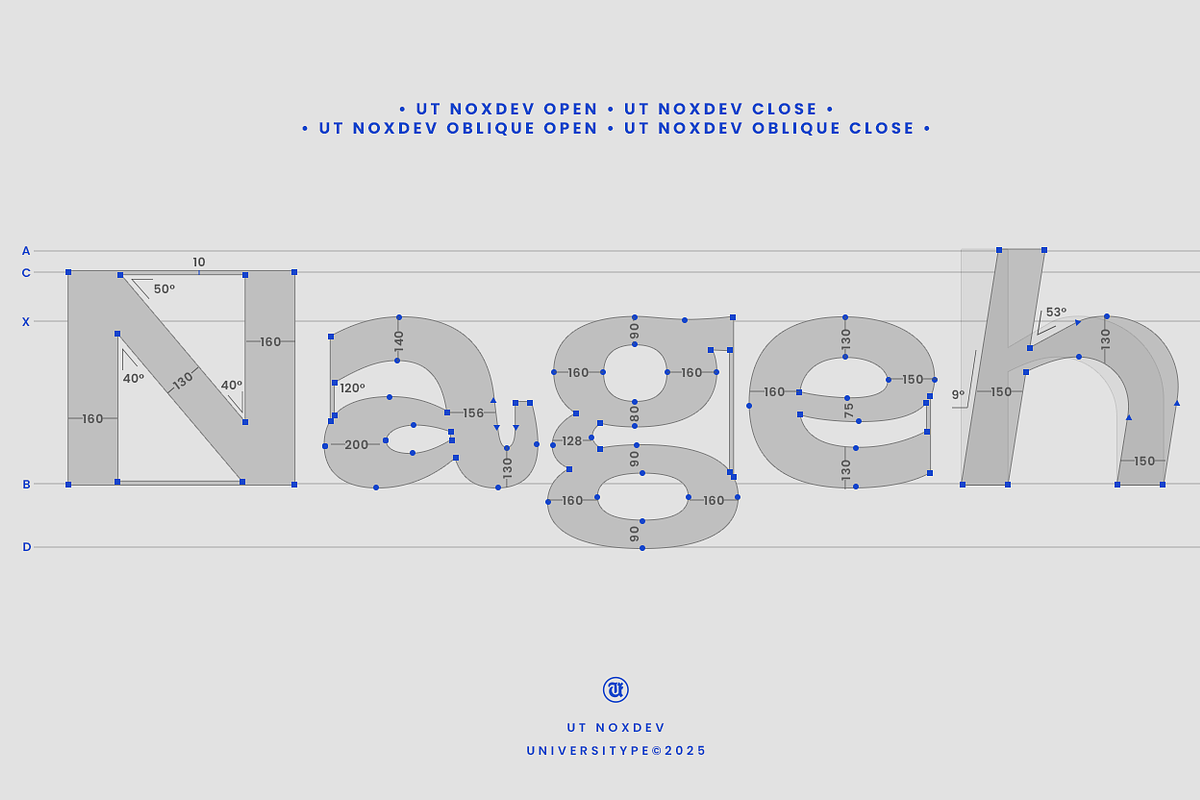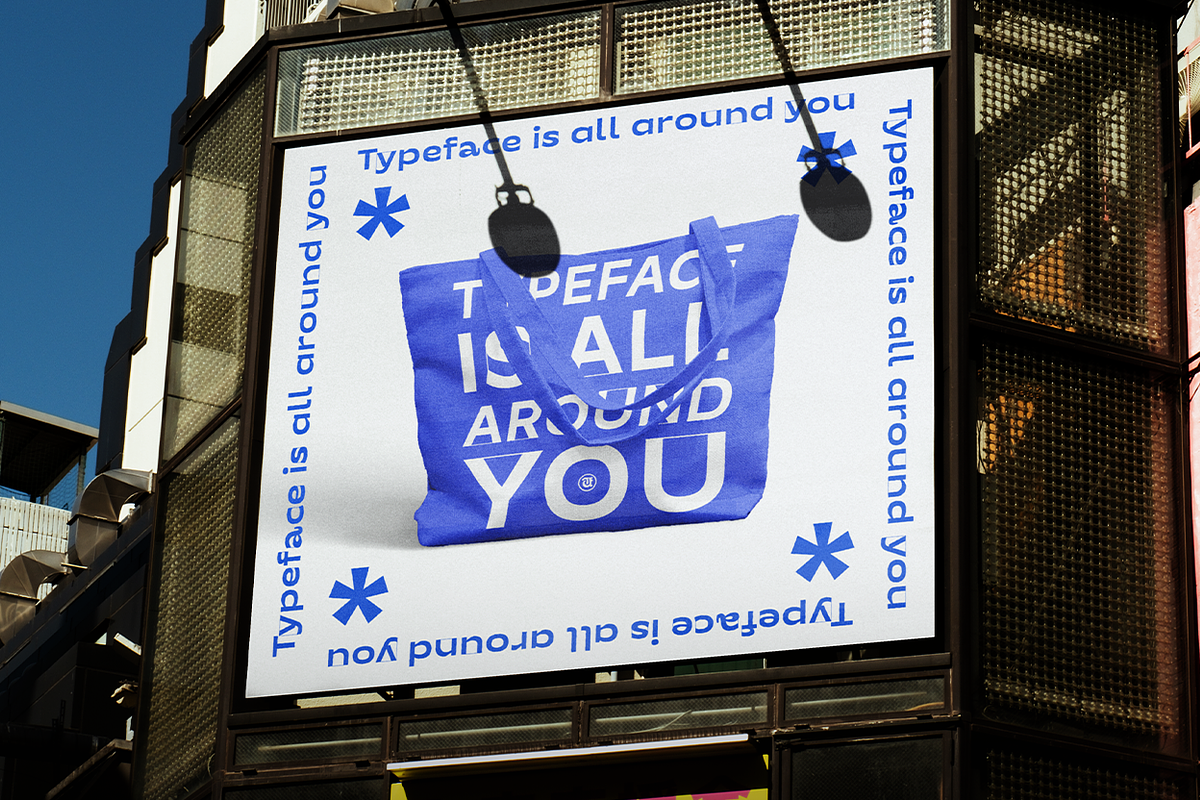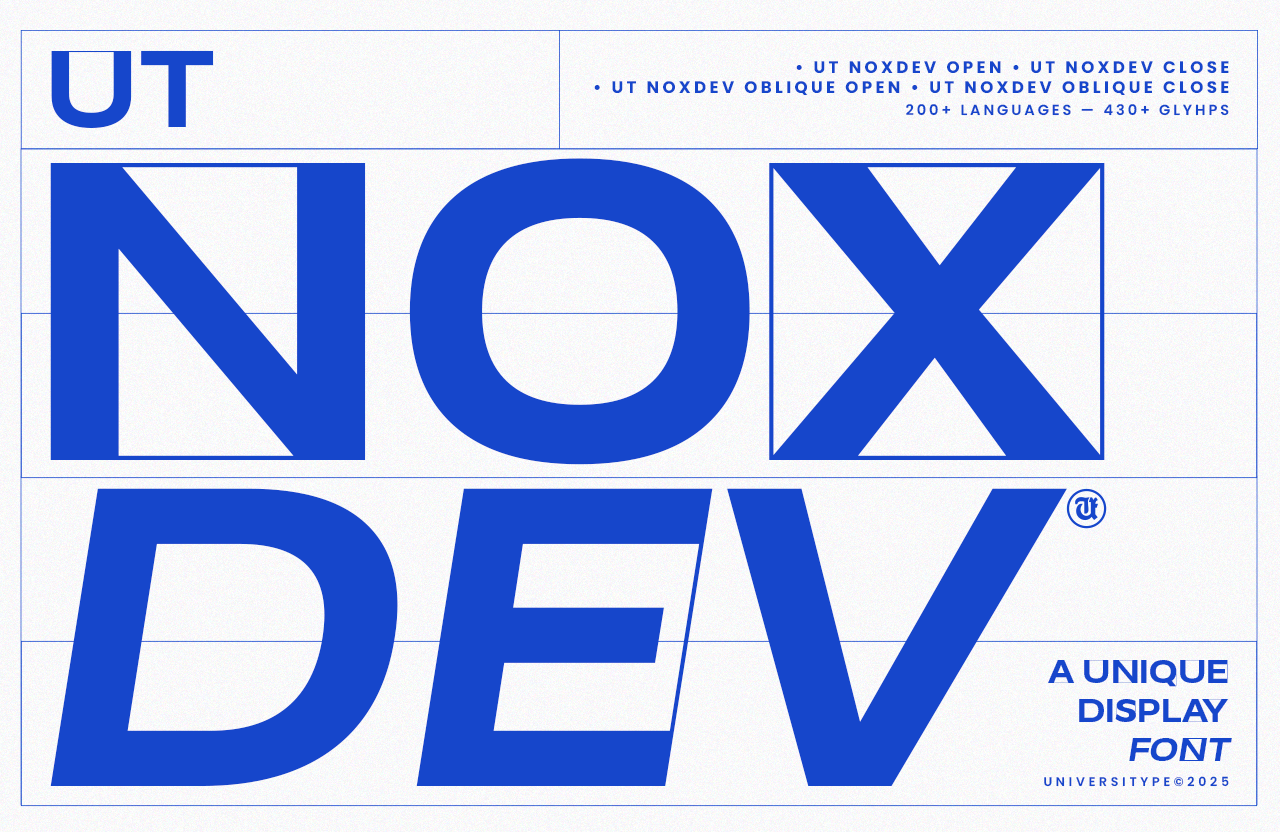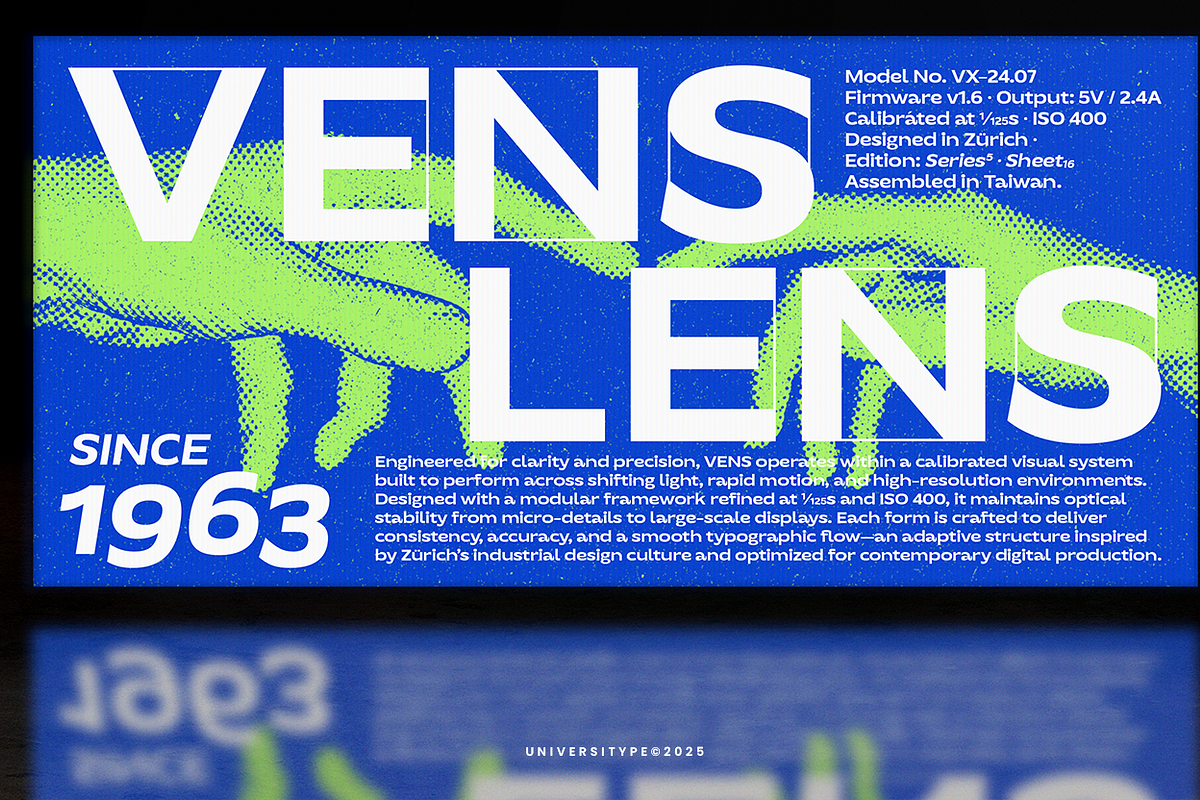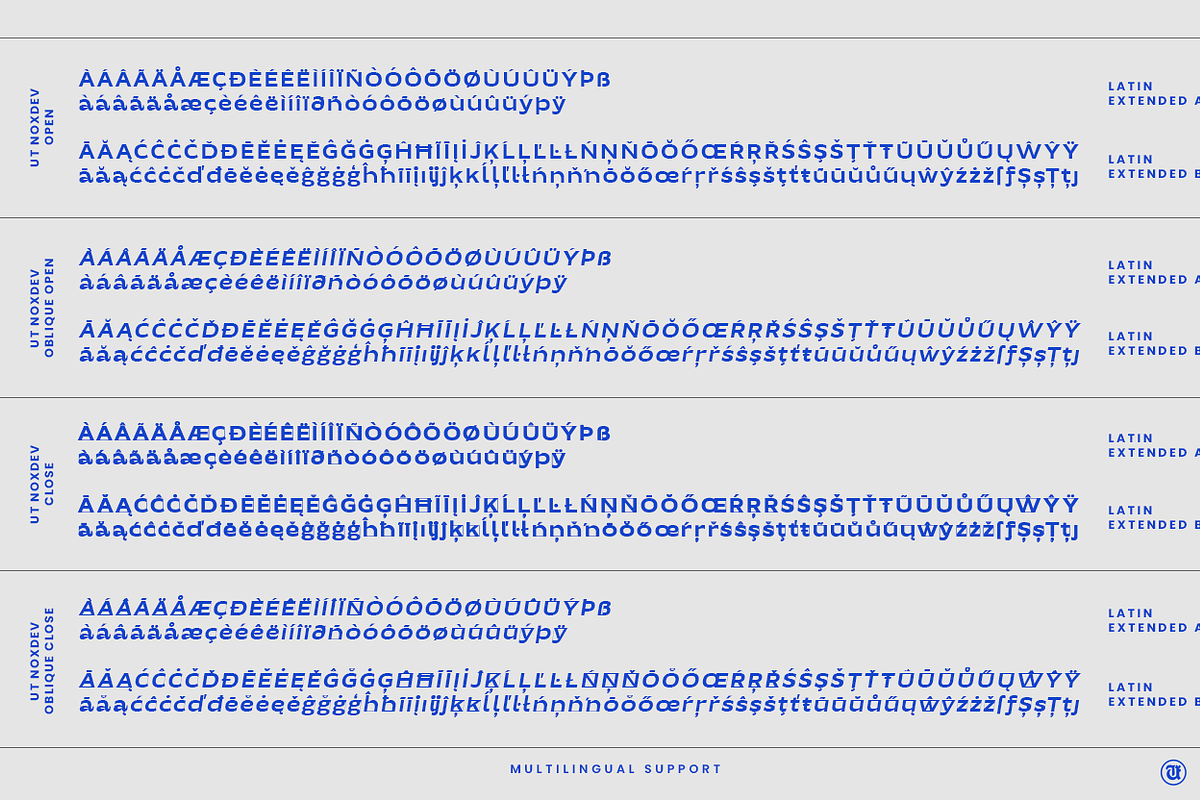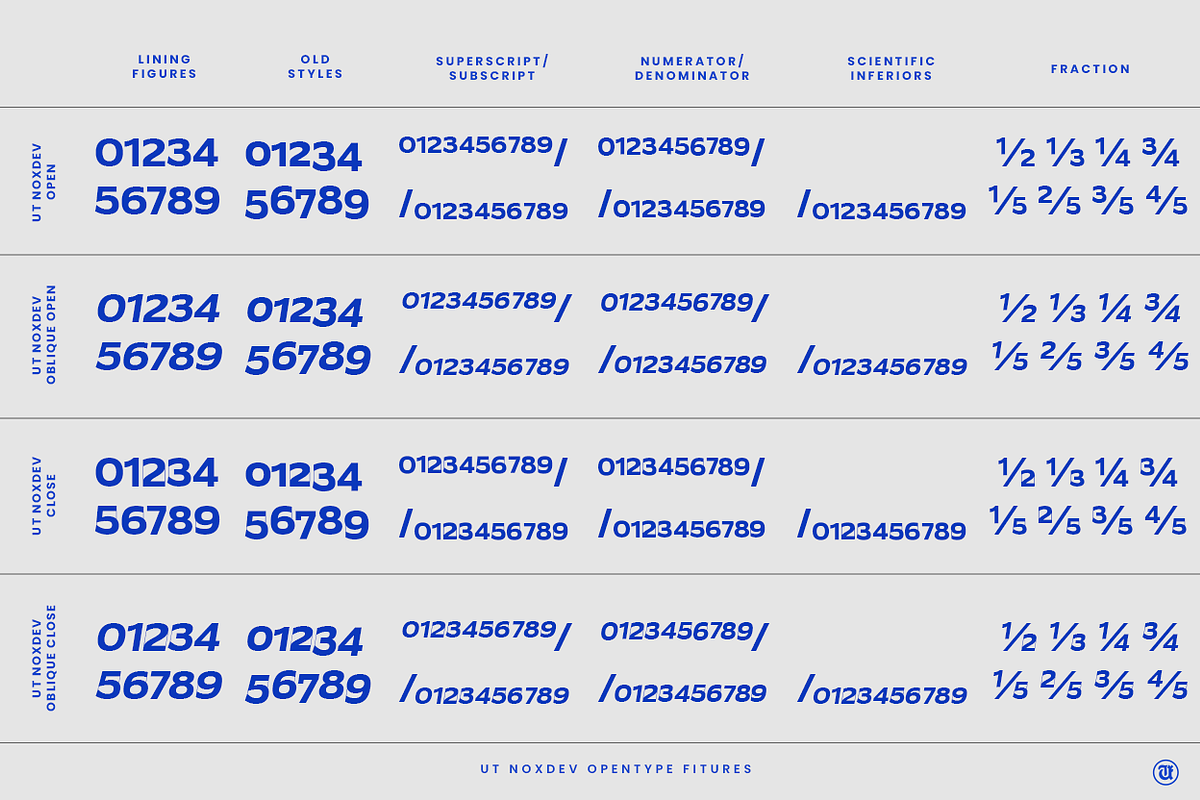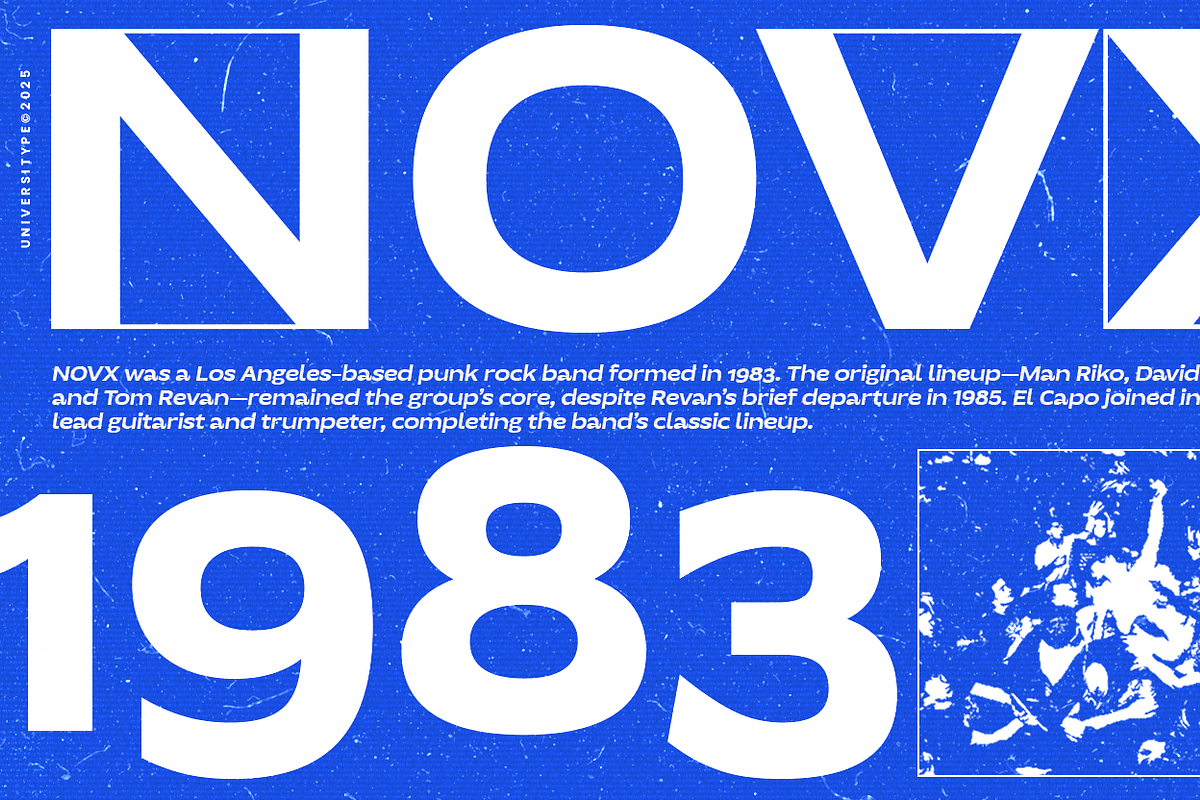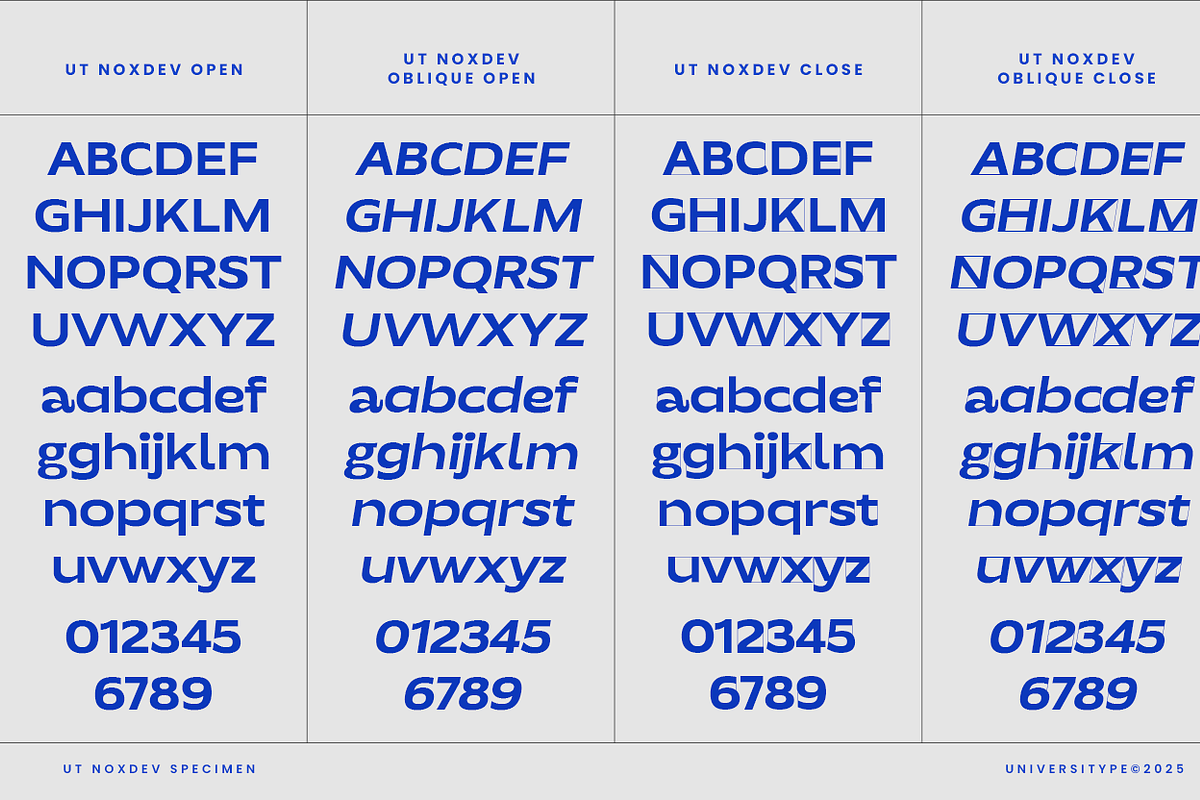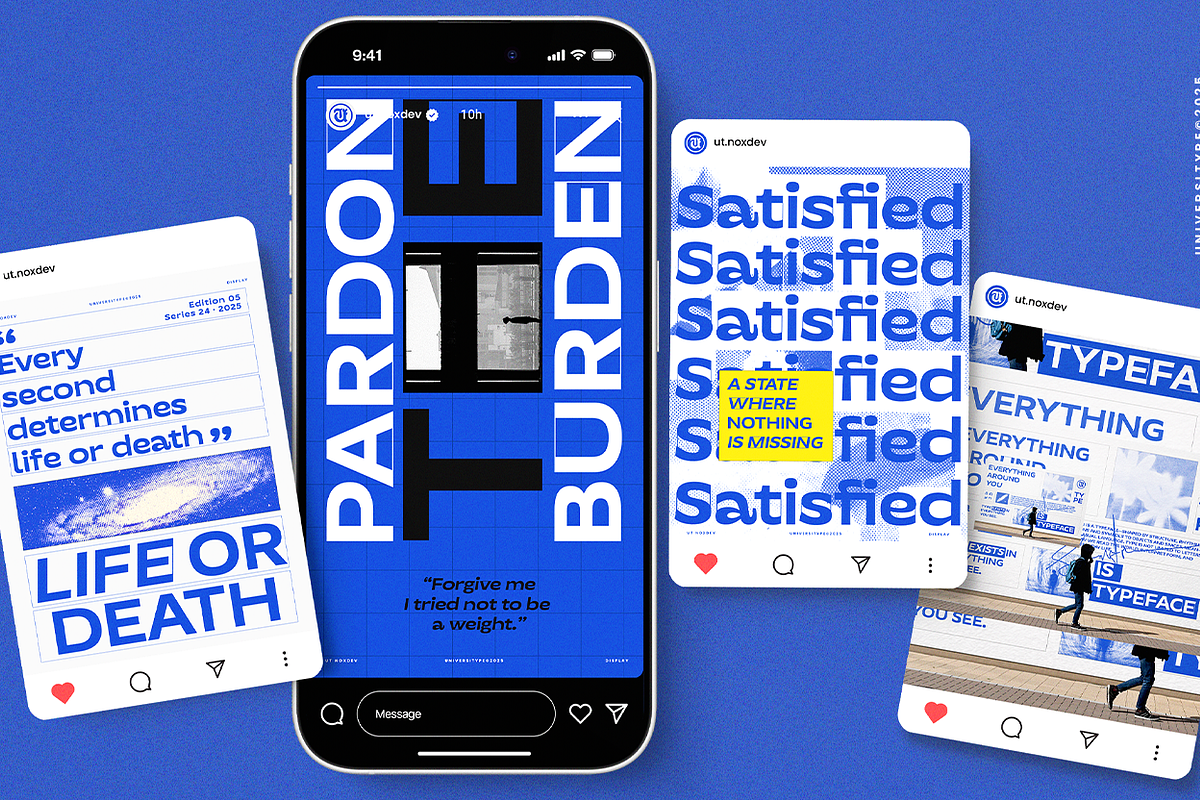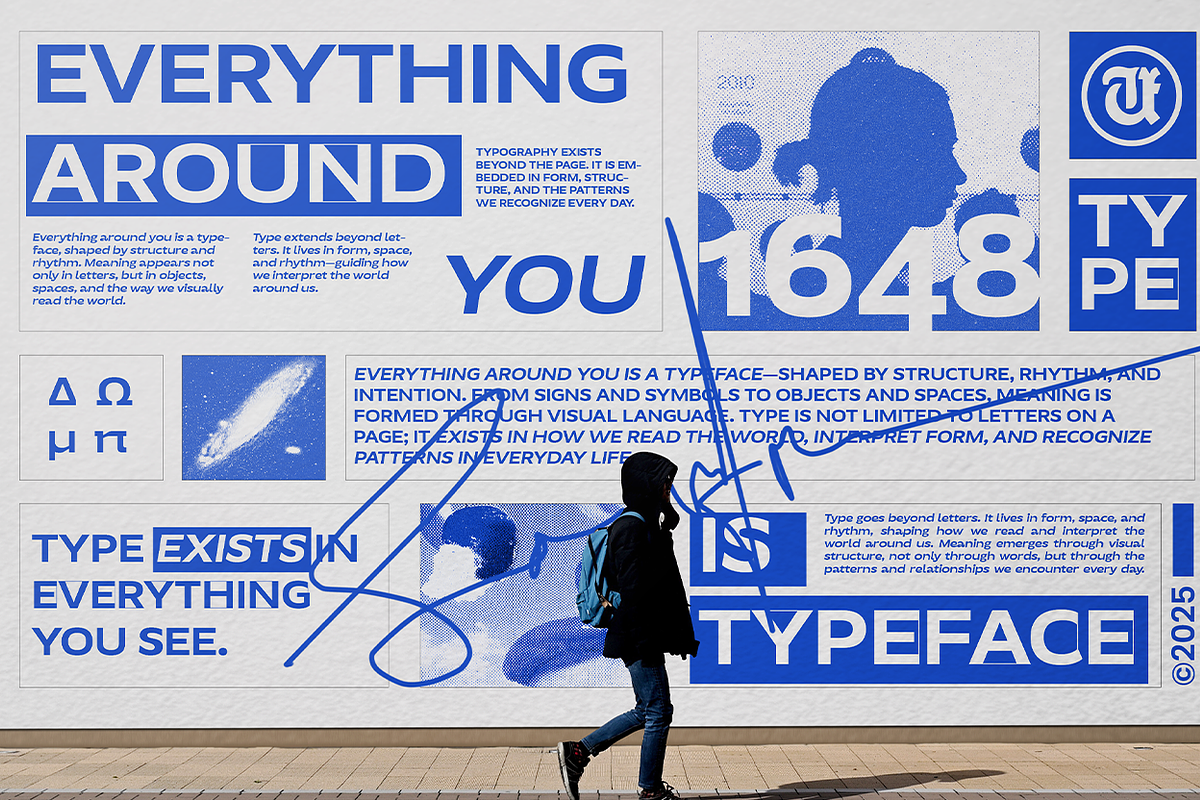
UT Noxdev - A Unique Display Font
UT Noxdev is a bold display typeface designed around contrast, structure, and visual tension. It plays with open and closed letterforms, sharp angles, and smooth curves to create a look that feels modern, technical, and confident. The result is a typeface that stands out instantly while staying controlled and intentional.
With multiple styles included, Noxdev lets you explore strong compositions, dynamic layouts, and striking typographic systems without losing consistency.
- Noxdev Open
- Noxdev Close
- Noxdev Oblique Open
- Noxdev Oblique Close
- 4 display styles
- Open and closed letter constructions
- Oblique styles for movement and emphasis
- Strong uppercase with expressive lowercase
- Clean geometric structure with sharp details
- 300+ glyphs
- Supports 200+ languages
- Posters and large-format graphics
- Branding and visual identity systems
- Editorial headlines
- Album covers and music visuals
- Web headers and digital campaigns
- Display-optimized spacing
- Clear, bold numerals
- Consistent design across all styles
- Works well for print and digital use